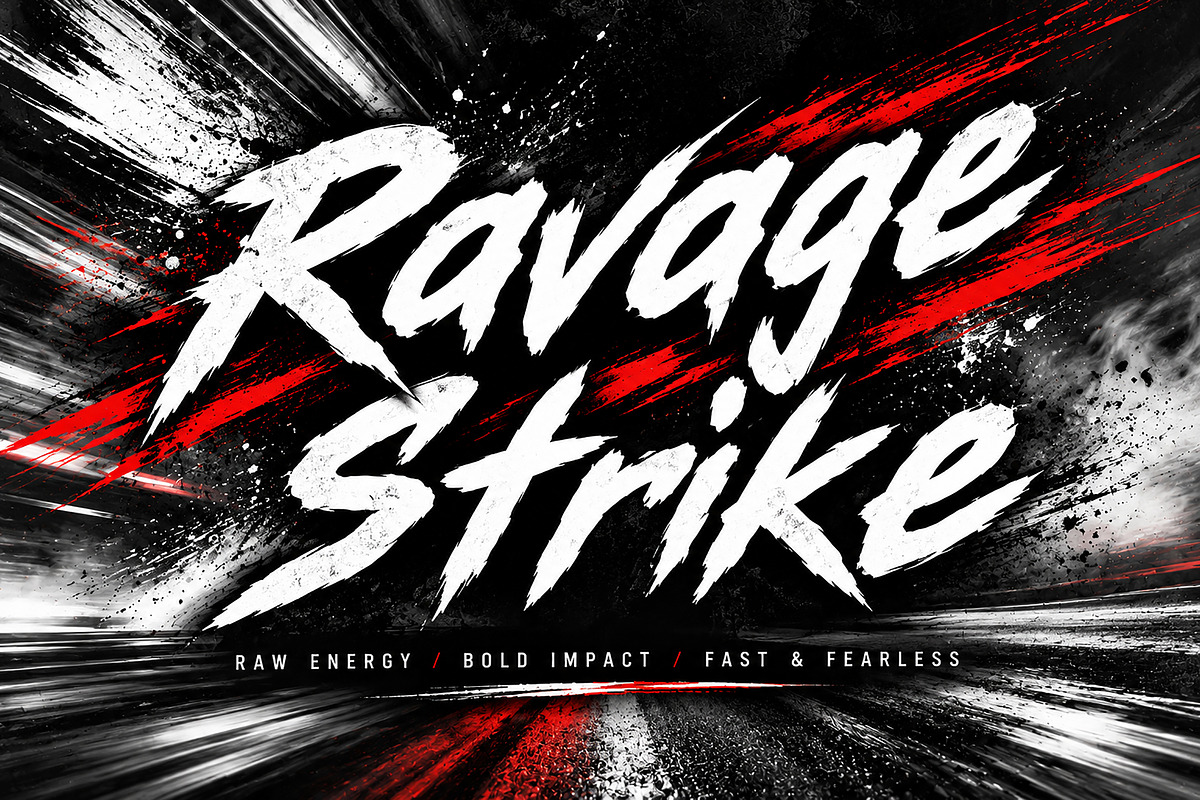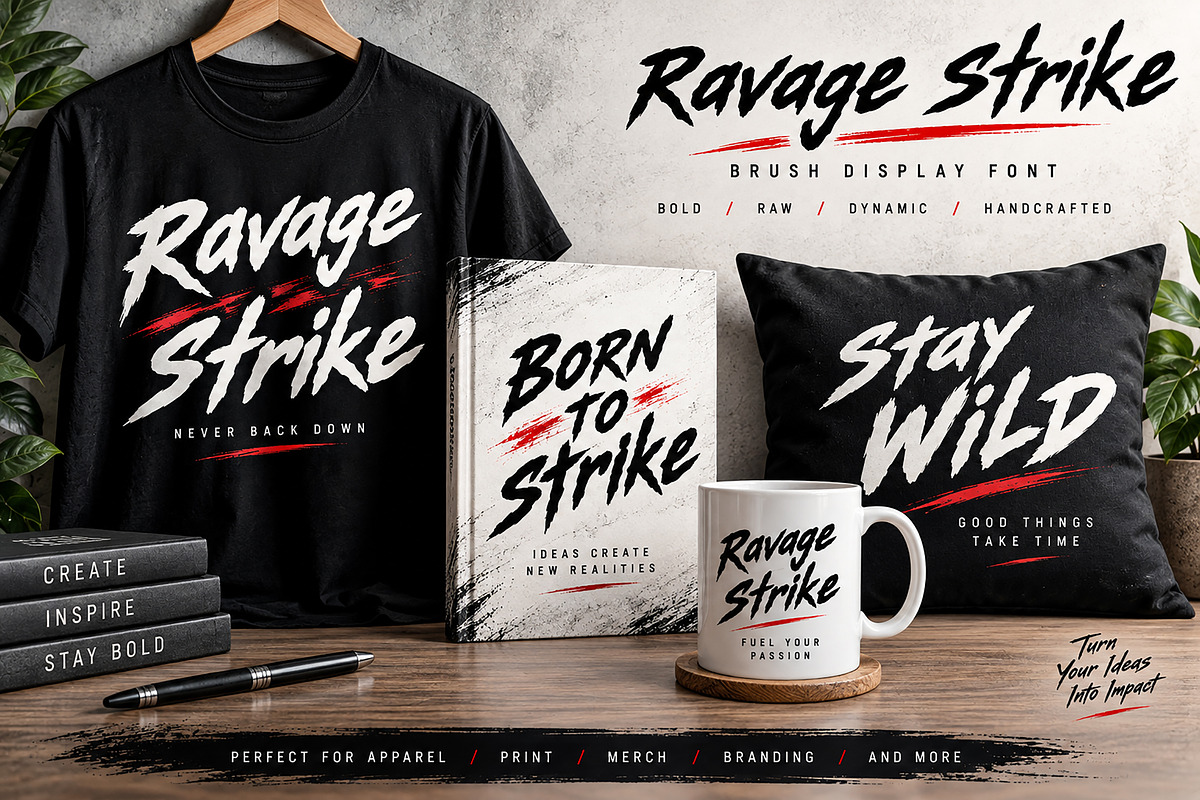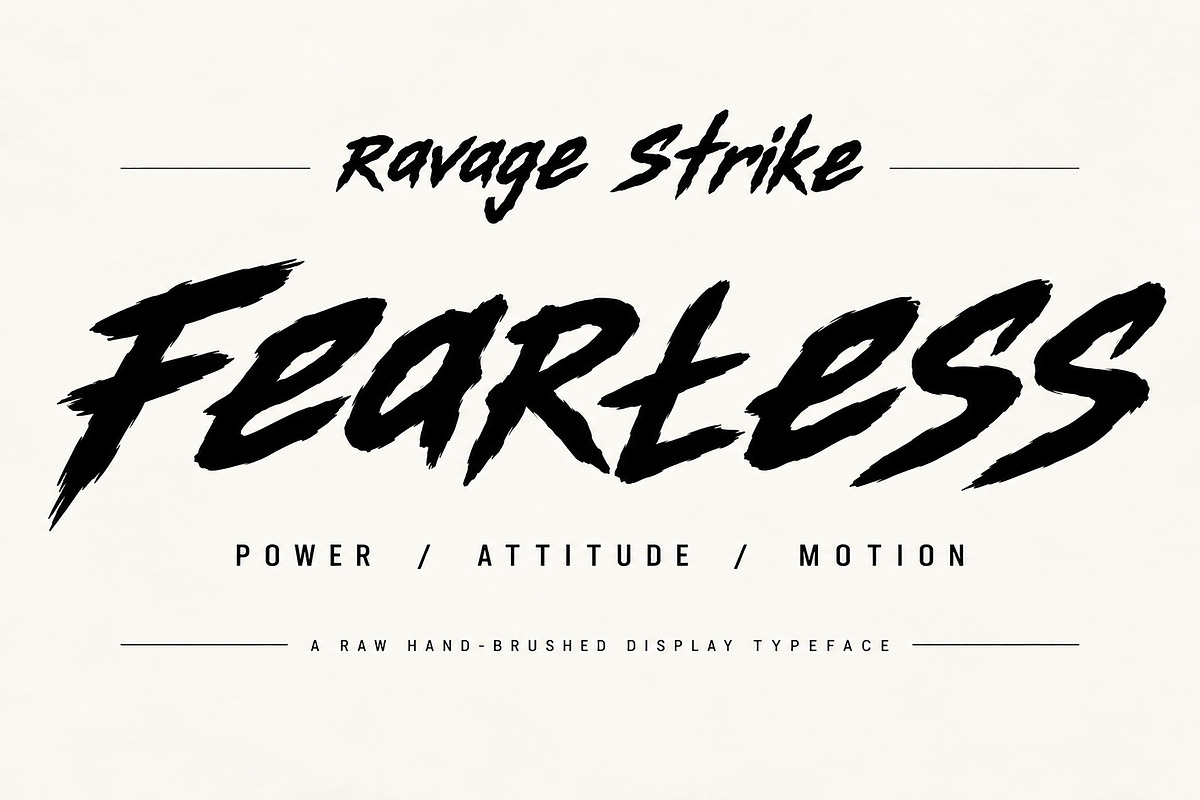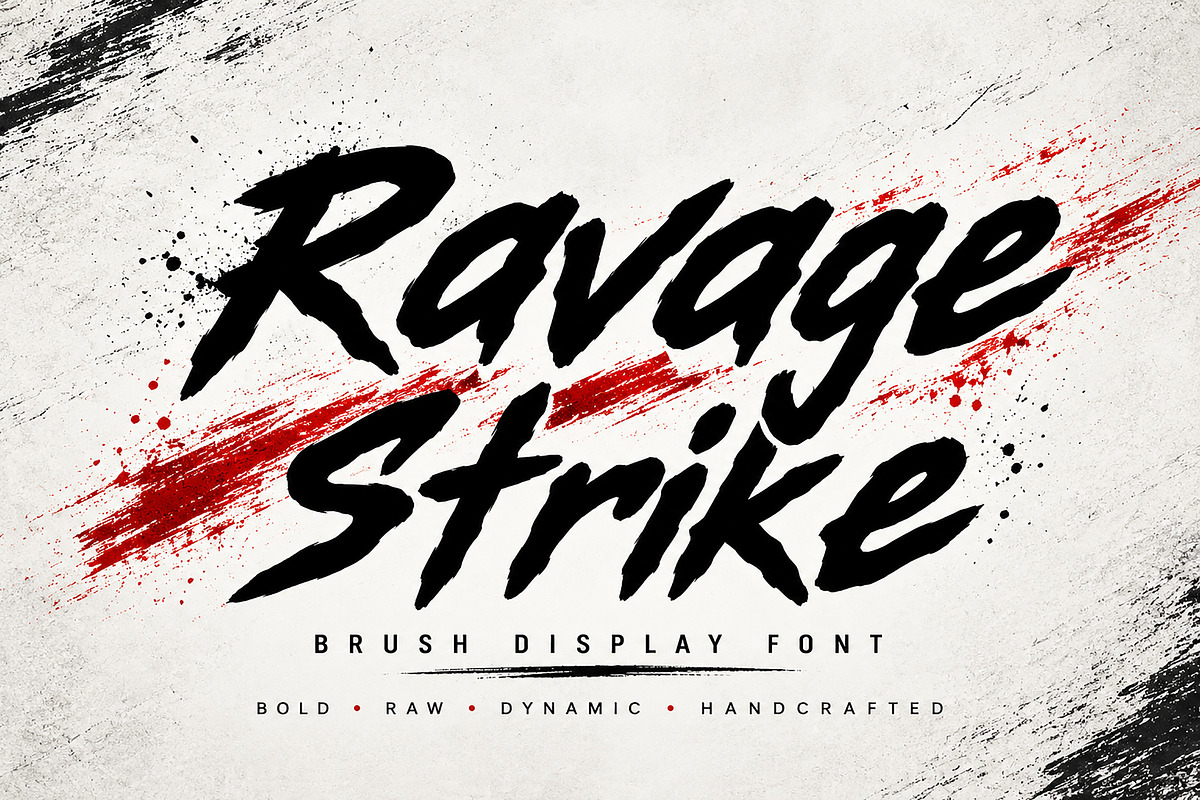
Ravage Strike – Brush Display Font
Ravage Strike – Bold Brush Display Font
Ravage Strike is a bold and energetic brush display font designed to bring raw attitude, movement, and handcrafted character to your creative projects.
Featuring dynamic brush strokes, edgy details, and an authentic hand-painted feel, Ravage Strike is perfect for designs that need a strong and fearless visual impact.
This versatile display typeface works beautifully for logos, branding, apparel, T-shirt designs, posters, album artwork, sports graphics, gaming designs, merchandise, social media graphics, packaging, stickers, headlines, and more.
Whether you're creating a powerful brand identity, an eye-catching poster, or bold merchandise artwork, Ravage Strike adds an instant sense of energy and personality to your typography.
Logo & Branding
T-Shirt & Apparel Designs
Posters & Flyers
Sports Graphics
Gaming Designs
Music & Album Artwork
Stickers & Labels
Headlines & Titles
Creative Advertising
Print & Digital Projects
Bold hand-brushed display style
Dynamic and expressive letterforms
Raw and energetic visual character
Perfect for bold typography
Ravage Strike is made for designers who want their typography to look bold, raw, dynamic, and unforgettable.